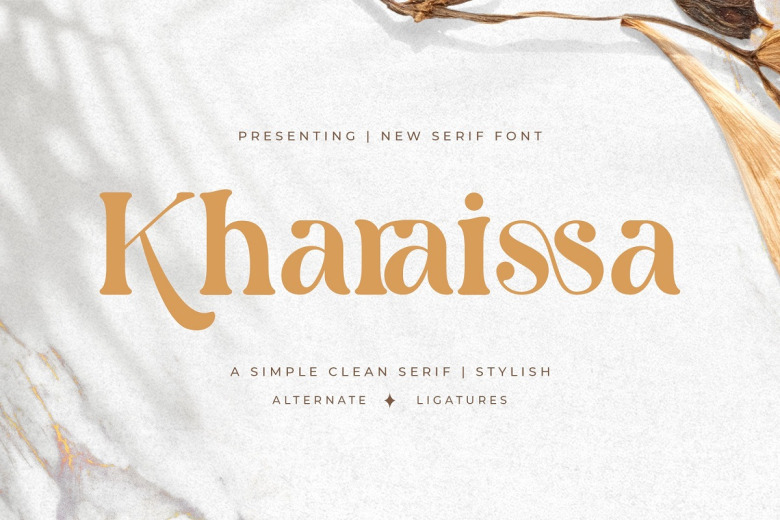
Kharaissa Font
Kharaissa is a clean serif typeface, which was designed based on continuous traditional influences. Bebree was designed with the idea to make it usable for multiple purposes. Every designer dreamt of a typeface that could be easily matched to an incredibly large set of projects.
Kharaissa Serif Font